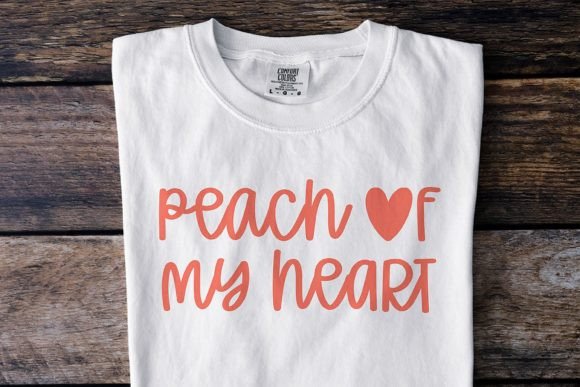
Amor Note Font
Amore Note is a cool, friendly, and informal handwritten font that can be used for all chalkboard quotes or teaching material! Its authentic look and feel will add a personal and realistic touch to your designs.